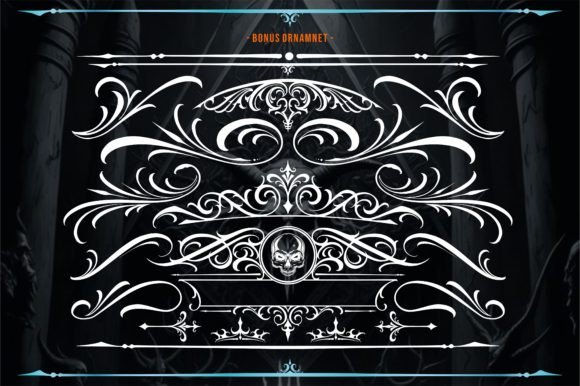
Porphyria Font
Porphyria is a Blackletter typeface inspired by tattoo letters, Chicano culture and street art. Suitable for many creative products and tattoo designs, like posters, t-shirts, street wear, logos, signage, headlines, etc.